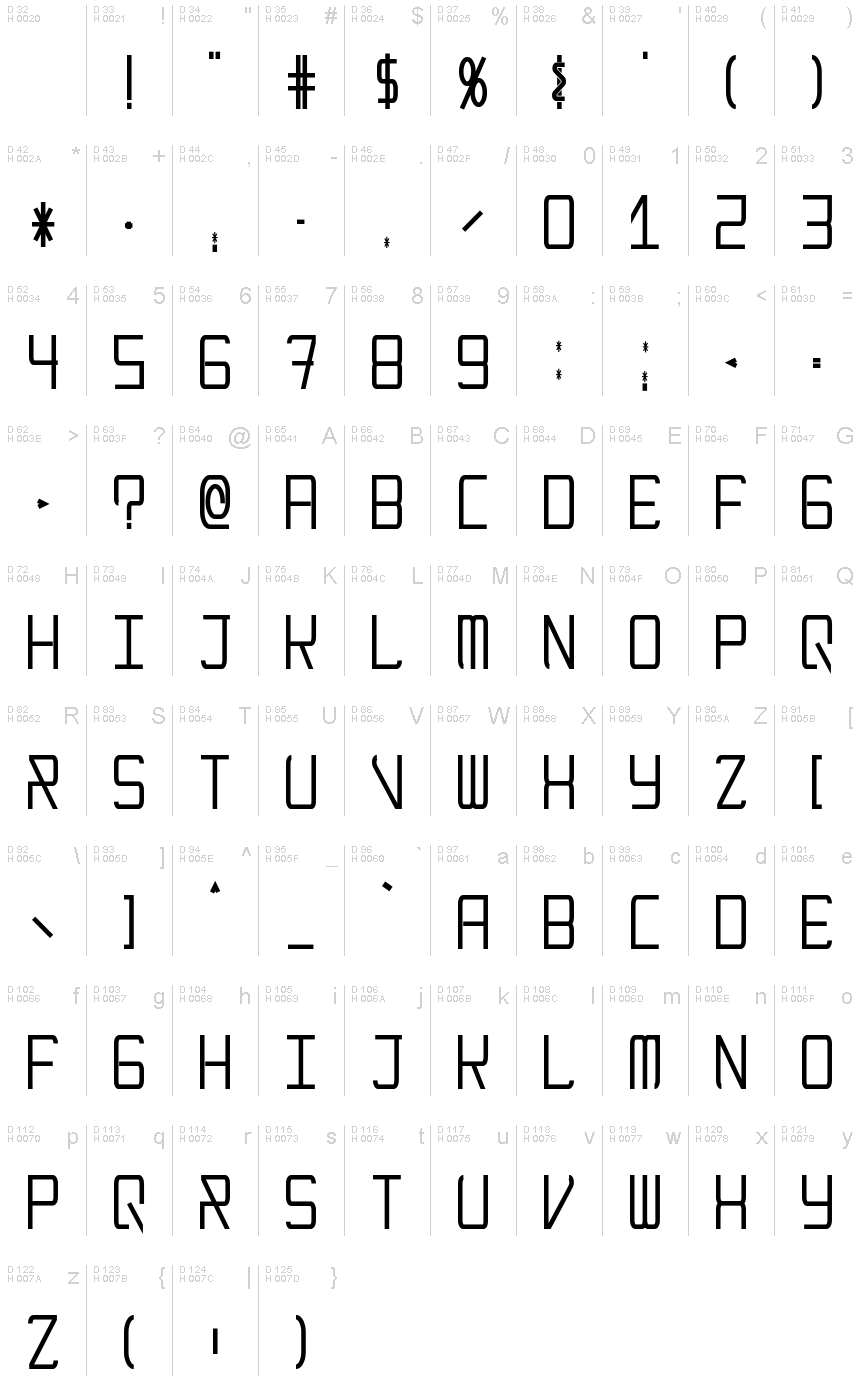
ModernismNarrow
Modernism Narrow is a striking and versatile font that effortlessly blends retro charm with a distinctly futuristic edge. Designed by Max Infeld Xerographer Fonts, this condensed display typeface exudes a bold, techno-inspired aesthetic that commands attention. The sharp, angular letterforms and sleek, minimalist style make Modernism Narrow an ideal choice for a wide range of design applications, from bold headlines and eye-catching logos to futuristic product branding and digital interfaces.
Its retro-futurist appeal lends itself beautifully to projects seeking a visually striking, yet highly legible typographic treatment.